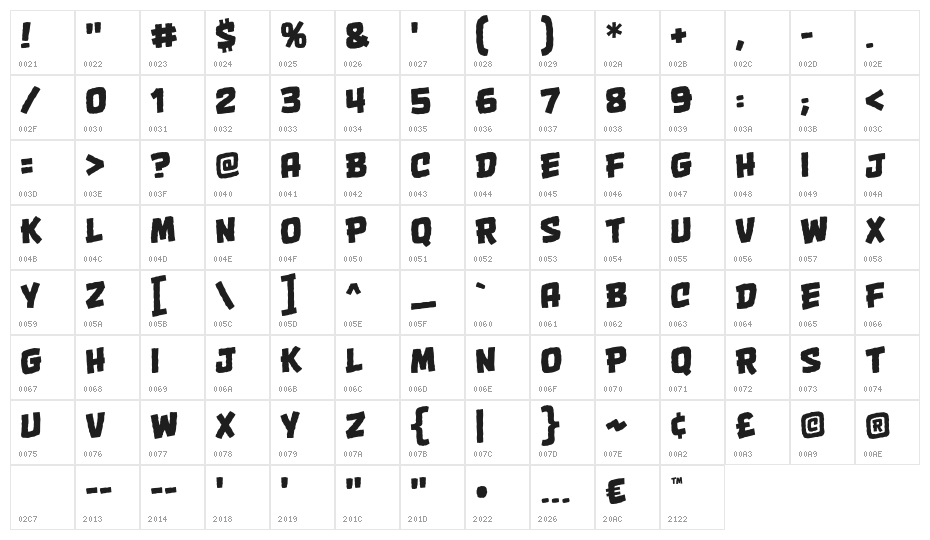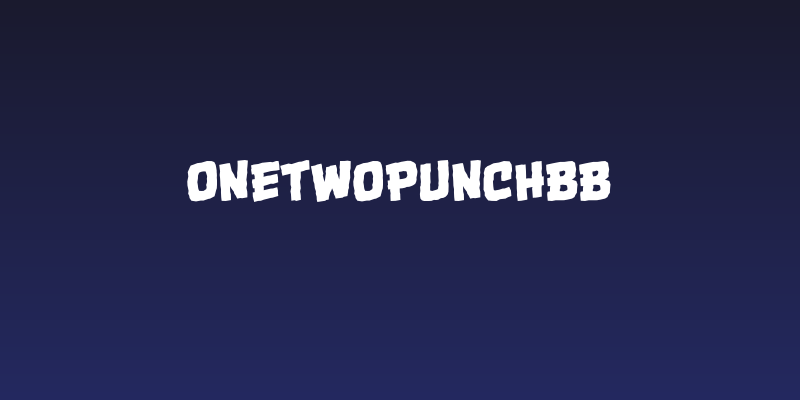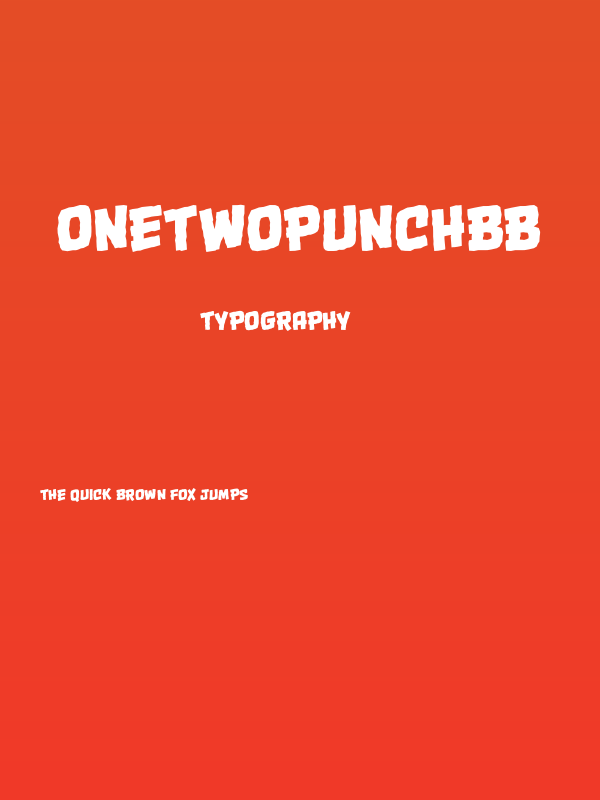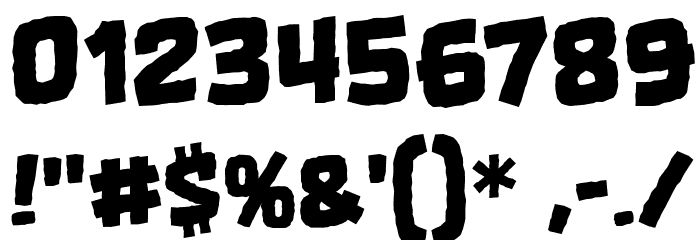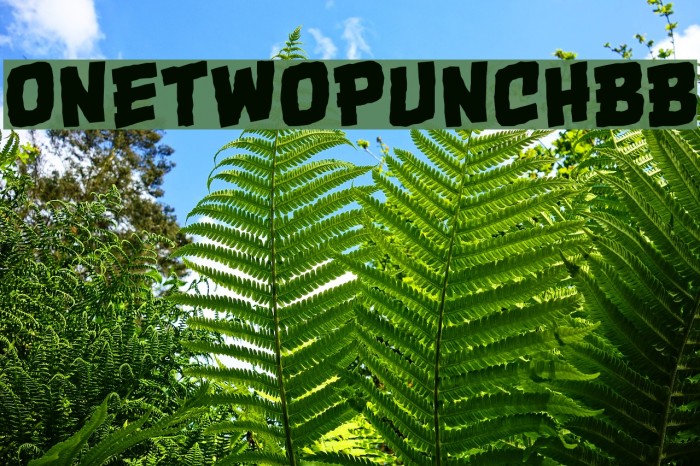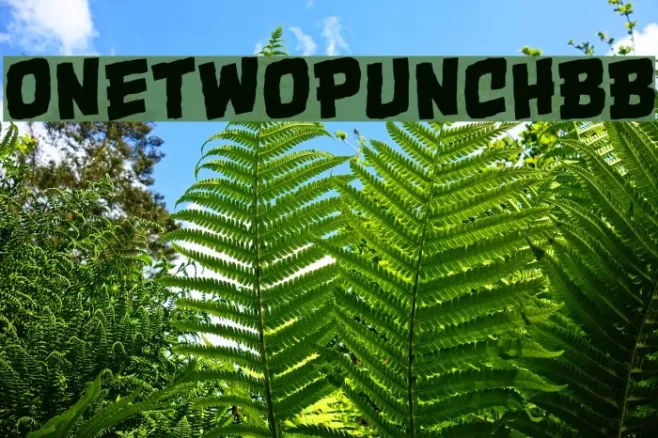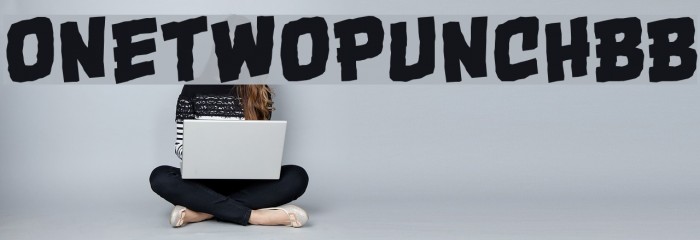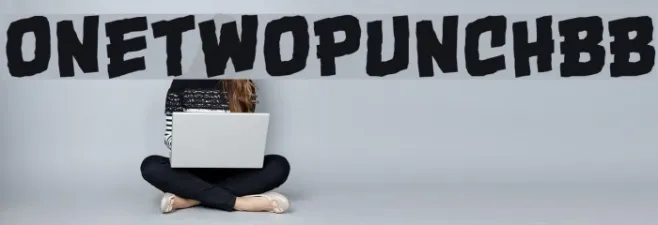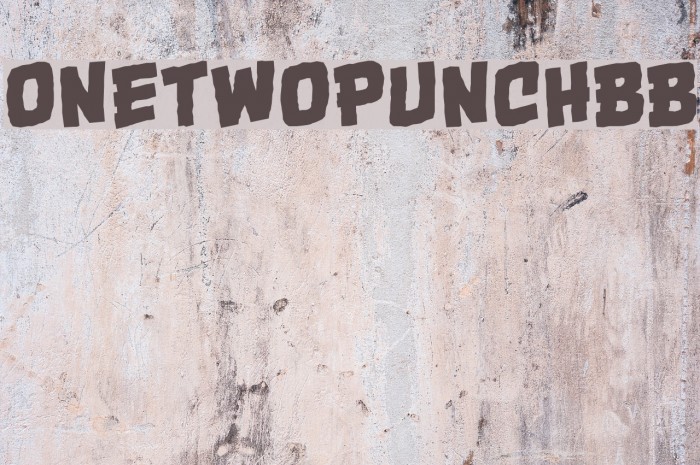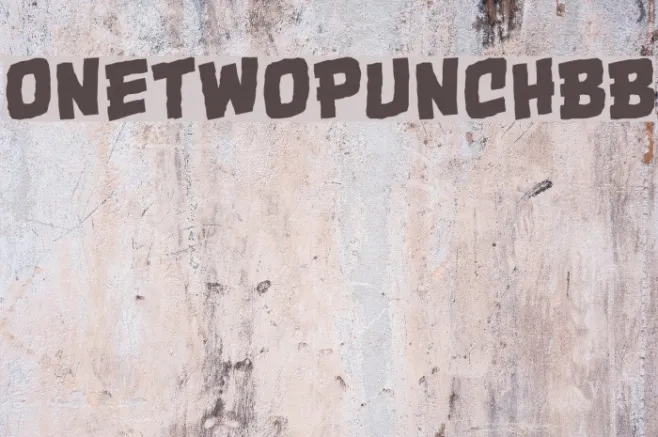
OneTwoPunchBB Font
OneTwoPunchBB Description
This font features a bold and dynamic style with a hand-drawn, brush-like appearance. The characters are thick and slightly irregular, giving them a lively and energetic feel. The uppercase and lowercase letters maintain a consistent weight, contributing to a cohesive look. The numbers and special characters follow the same design principles, ensuring uniformity across all glyphs. This font's rugged and playful nature makes it ideal for projects that require a strong visual impact.
| Proposed Projects | Ideal for posters, comic book titles, video game graphics, and branding materials that require a bold and playful touch. |